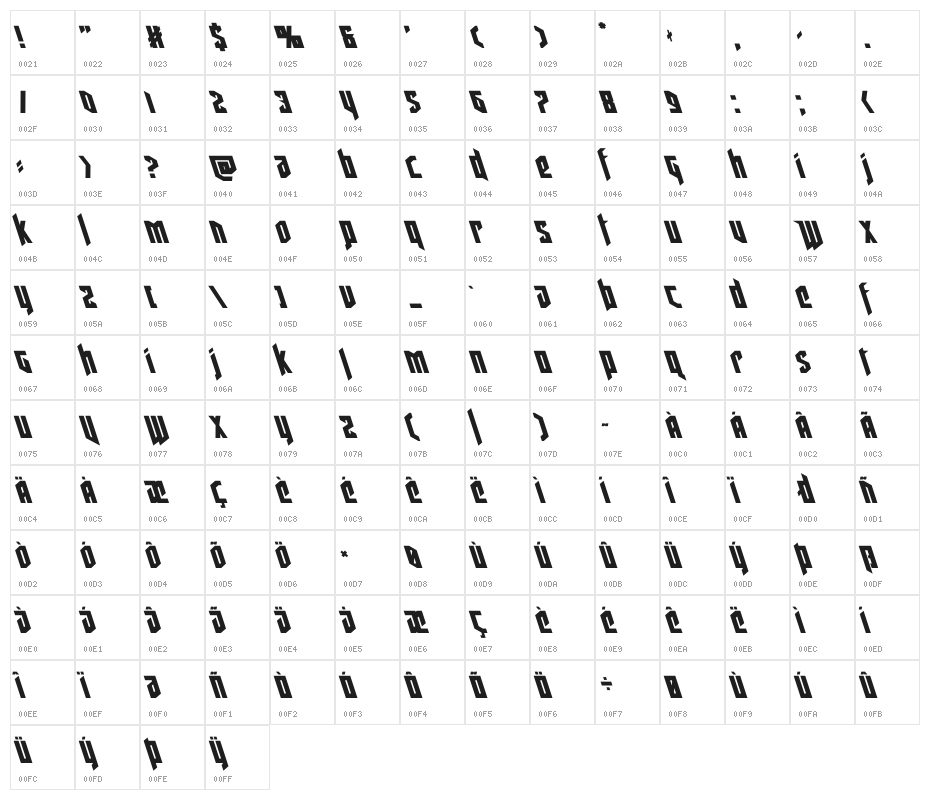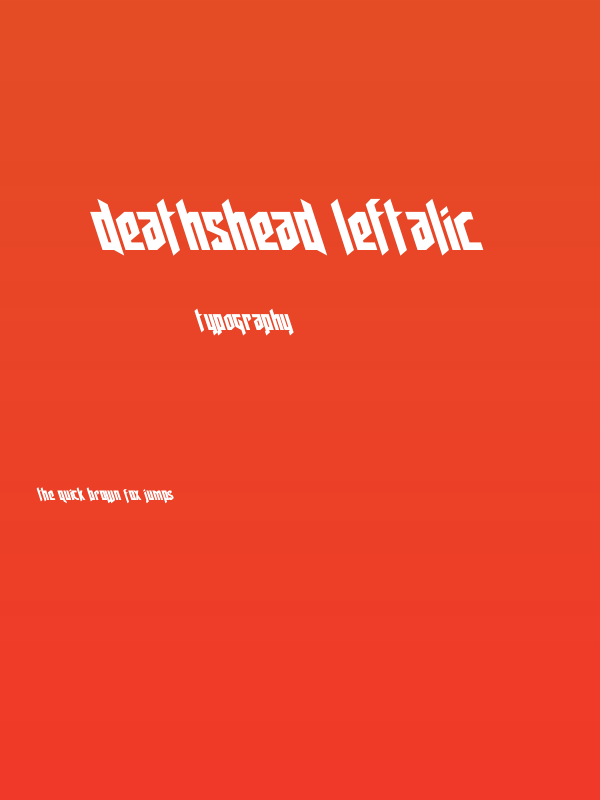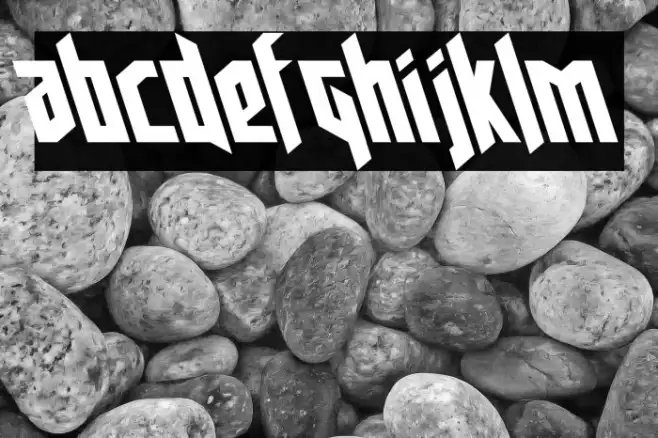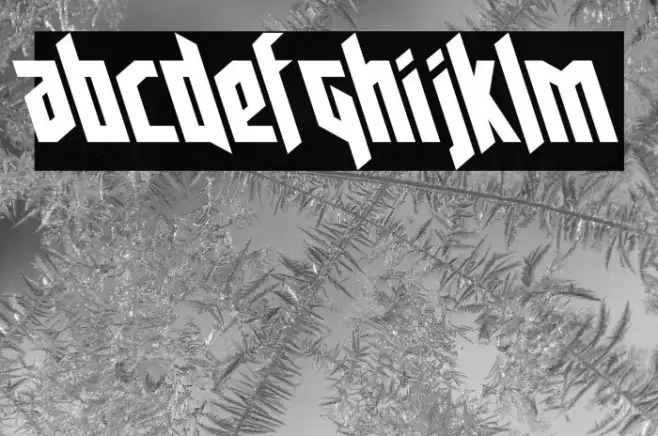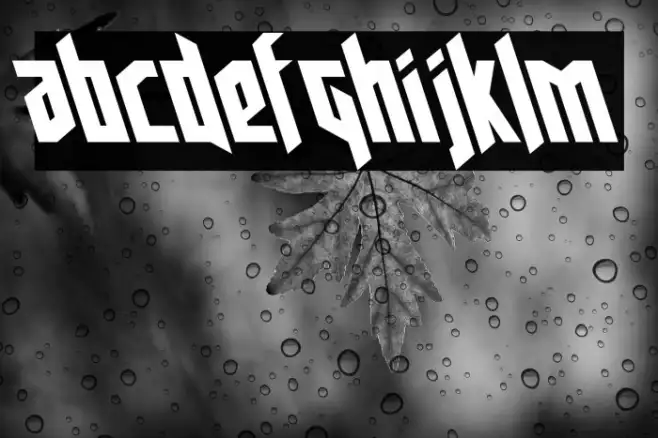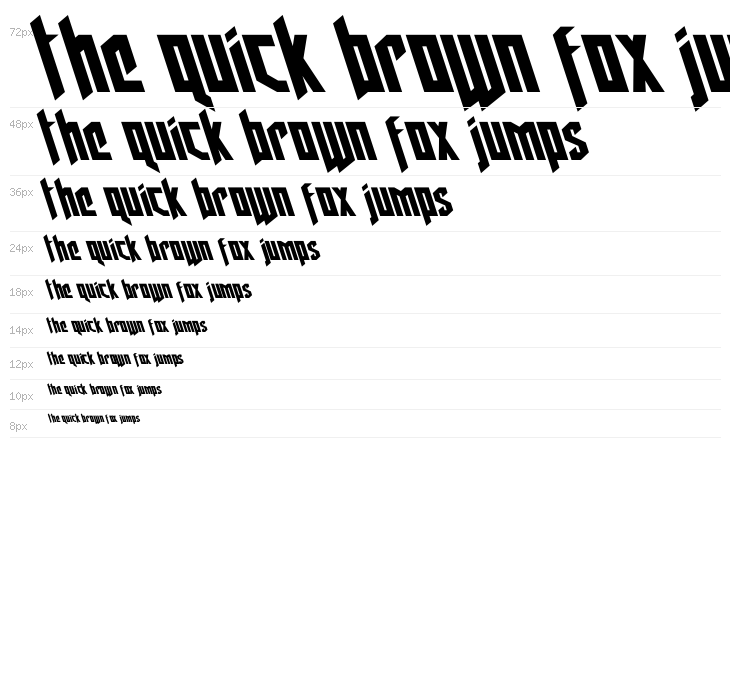
Deathshead Leftalic Font
Deathshead Leftalic Description
This font features a bold, angular design with a distinct left-leaning slant, giving it a dynamic and aggressive appearance. The characters are heavily stylized with sharp edges and a geometric structure, creating a sense of movement and intensity. The uppercase and lowercase letters maintain a consistent style, with the lowercase mirroring the uppercase in form. Numbers and special characters follow the same bold and angular aesthetic, ensuring uniformity across all glyphs. The overall look is striking and modern, making it suitable for projects that require a strong visual impact.